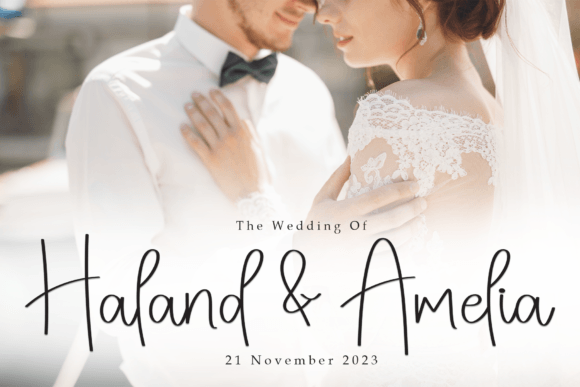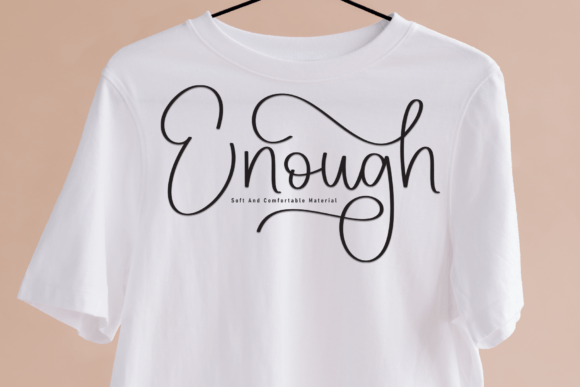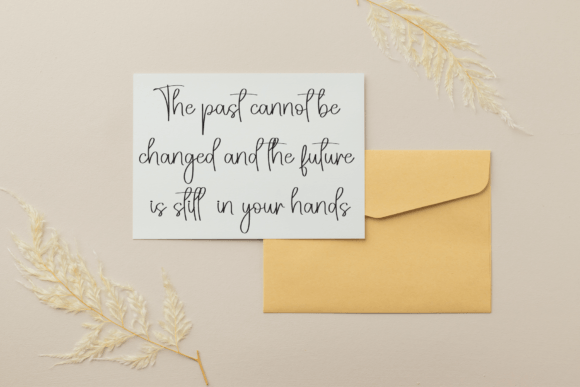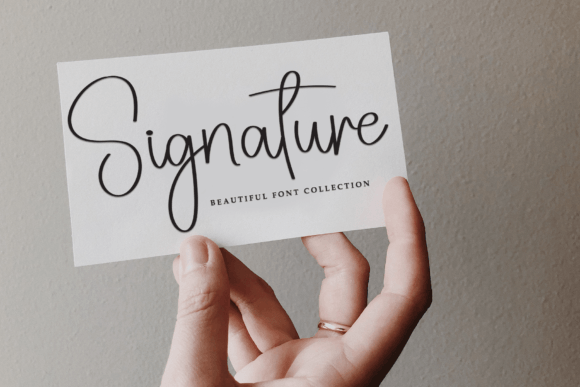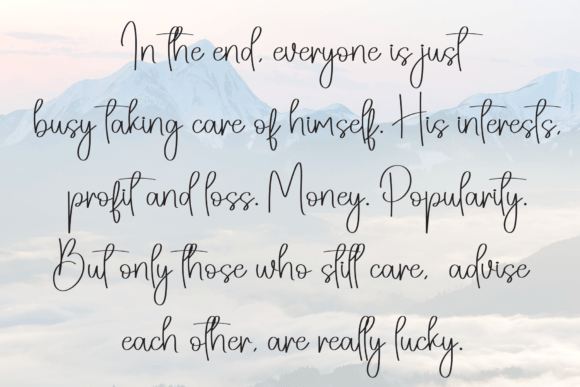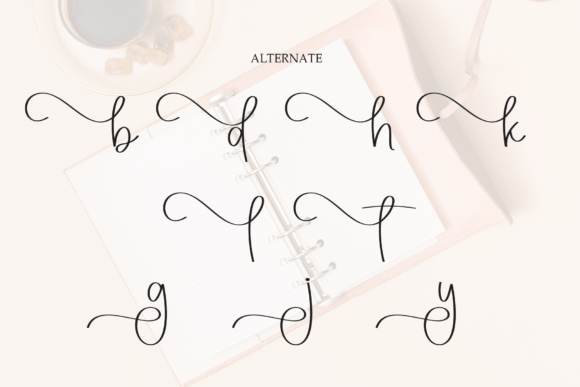
Introducing Diarynotes Font: The Perfect Blend of Classic and Contemporary
Are you a designer or crafter looking for a font that exudes elegance and sophistication? Look no further than Diarynotes Font, a beautifully crafted handwritten font that is sure to become your new favorite. With its classy calligraphic influences and modern twist, Diarynotes Font is the perfect choice for anyone looking to add a touch of luxury to their projects.
The Story Behind Diarynotes Font
Diarynotes Font is an exquisite handwritten font that has been masterfully designed to capture the essence of traditional calligraphy while feeling fresh and contemporary. The font’s creator has poured their heart and soul into crafting a unique and beautiful typeface that is sure to inspire creativity and bring a touch of elegance to any project.
What Makes Diarynotes Font So Special?
So, what sets Diarynotes Font apart from other fonts on the market? Here are just a few of its standout features:
- Classy Calligraphic Influences: Diarynotes Font boasts beautiful calligraphic influences that give it a sophisticated and elegant feel.
- Contemporary and Fresh: Despite its classic influences, Diarynotes Font feels modern and fresh, making it perfect for designers and crafters who want to create something new and exciting.
- Handwritten with Love: Diarynotes Font is a handwritten font that has been crafted with love and care, giving it a unique and personal touch.
- Perfect for a Variety of Projects: Whether you’re working on a wedding invitation, a branding project, or a craft tutorial, Diarynotes Font is the perfect choice.
How to Use Diarynotes Font in Your Projects
Diarynotes Font is incredibly versatile and can be used in a wide range of projects, including:
- Wedding Invitations and Stationery: Add a touch of elegance to your wedding invitations, save-the-dates, and other stationery with Diarynotes Font.
- Branding and Packaging: Use Diarynotes Font to create beautiful and sophisticated branding and packaging for your business or product.
- Craft Tutorials and Blogging: Add a personal touch to your craft tutorials and blog posts with Diarynotes Font.
- Social Media Graphics: Use Diarynotes Font to create stunning social media graphics that will help you stand out from the crowd.
Tips for Getting the Most Out of Diarynotes Font
Here are a few tips for getting the most out of Diarynotes Font:
- Experiment with Different Sizes and Colors: Diarynotes Font looks beautiful in a variety of sizes and colors, so don’t be afraid to experiment and find the perfect combination for your project.
- Pair it with Other Fonts: Diarynotes Font pairs beautifully with other fonts, so try combining it with a sans-serif font for a stunning contrast.
- Use it to Add a Personal Touch: Diarynotes Font is perfect for adding a personal touch to your projects, so use it to create beautiful and unique handmade elements.
In conclusion, Diarynotes Font is a truly exquisite handwritten font that is sure to become a favorite among designers and crafters. With its classy calligraphic influences and modern twist, Diarynotes Font is the perfect choice for anyone looking to add a touch of elegance and sophistication to their projects. So why wait? Fall in love with Diarynotes Font and bring your projects to the highest levels!